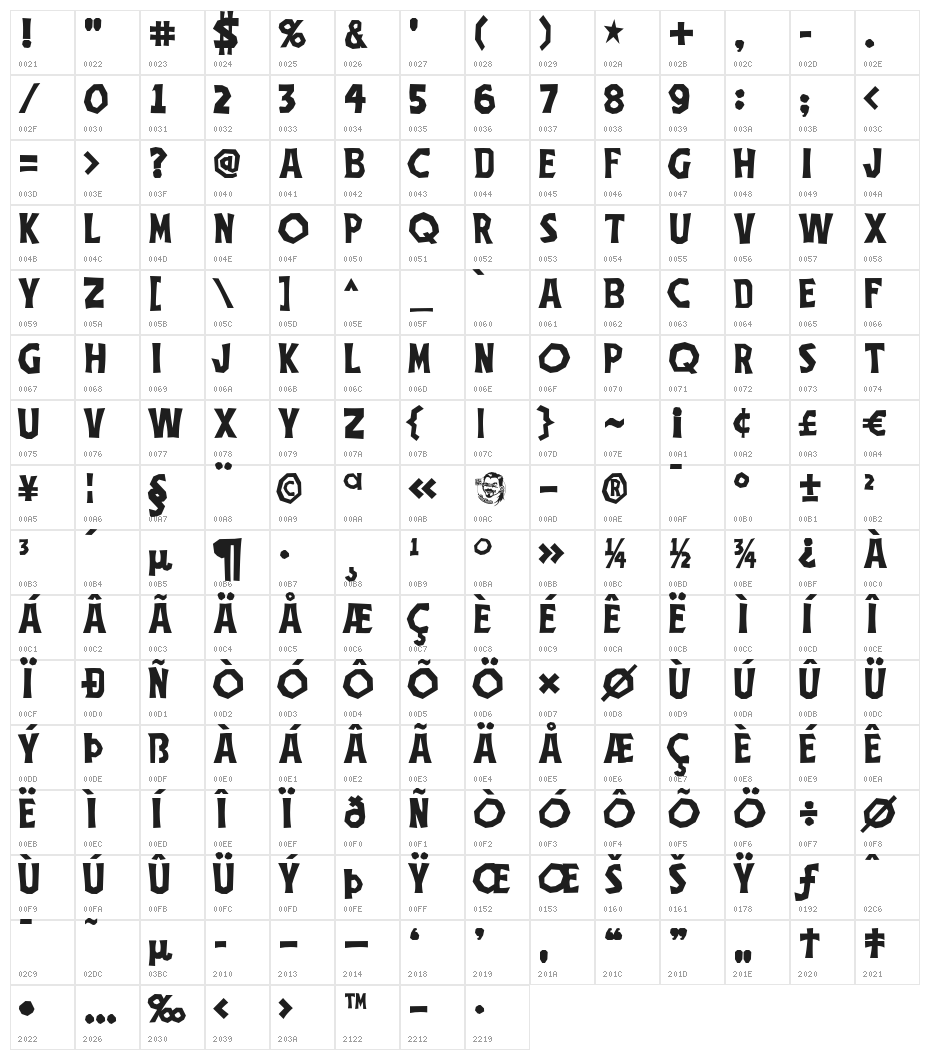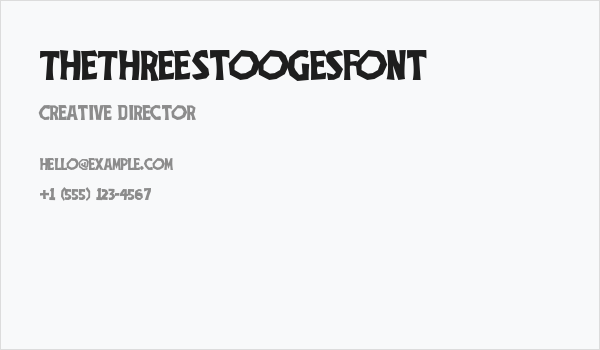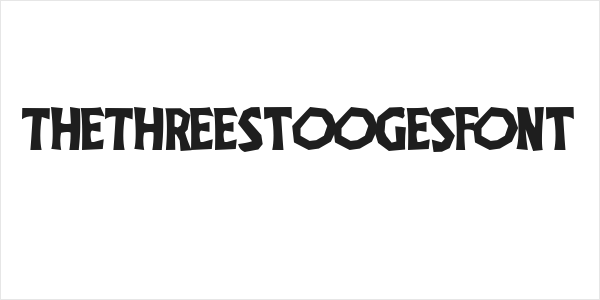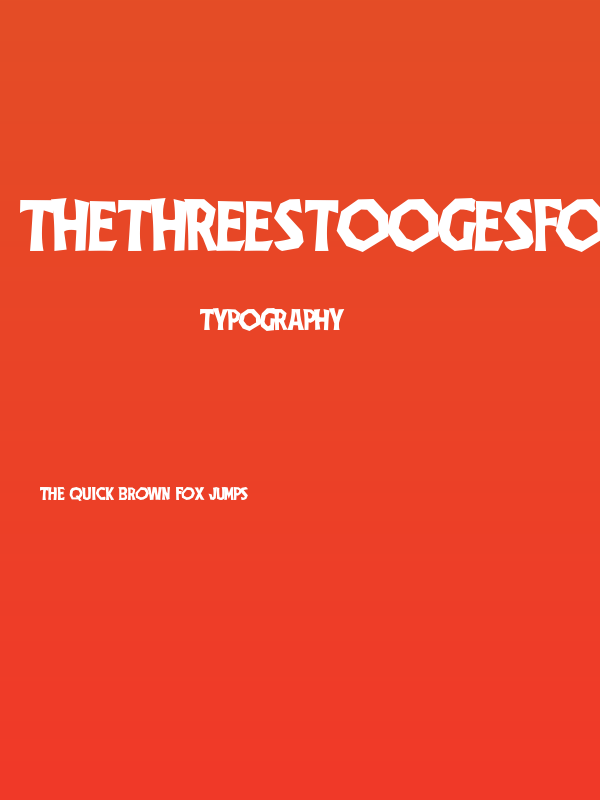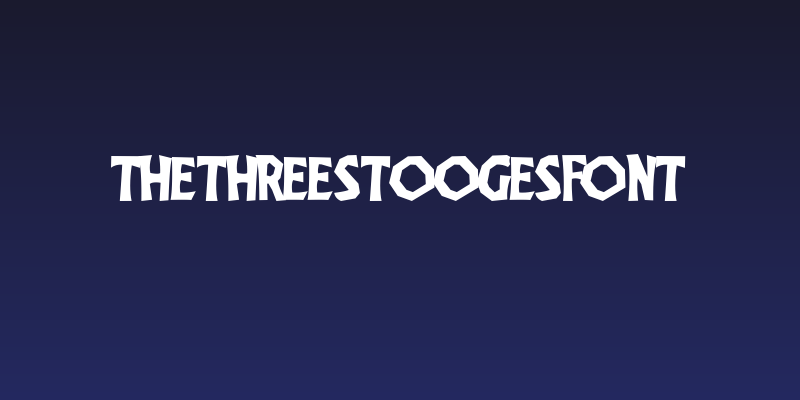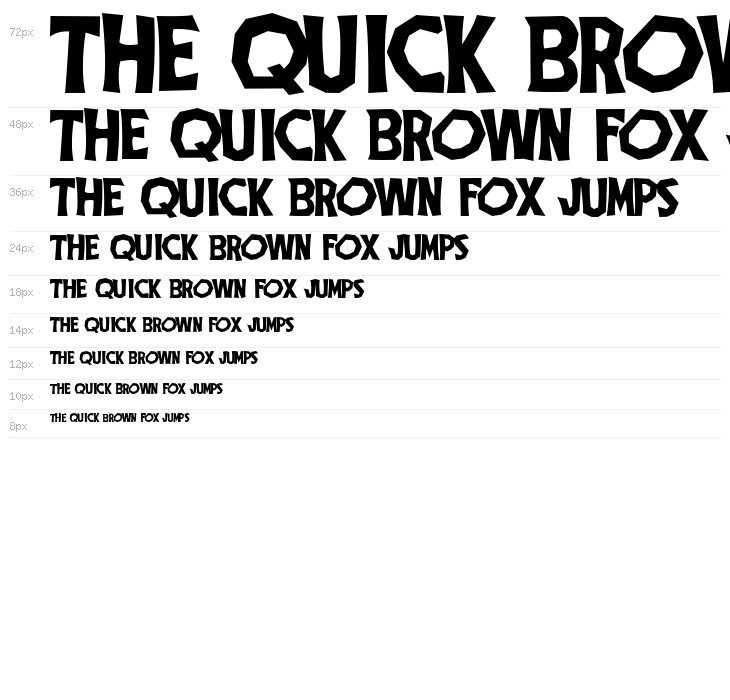
TheThreeStoogesFont Font
TheThreeStoogesFont Description
This font features a bold and playful design with irregular, jagged edges that give it a hand-drawn, cartoonish appearance. The uppercase and lowercase letters maintain a consistent style, characterized by their exaggerated, uneven strokes and dynamic forms. The numbers and special characters follow the same whimsical aesthetic, making the font suitable for projects that require a fun and informal touch. Its unique style captures attention and adds a sense of humor and lightheartedness to any design.
| Overall Style | Cartoonish, Playful, Whimsical |
| Proposed Projects | Ideal for comic books, children's books, playful branding, posters, and party invitations. |